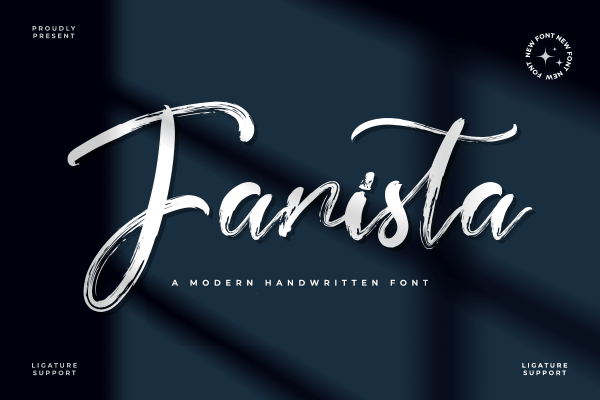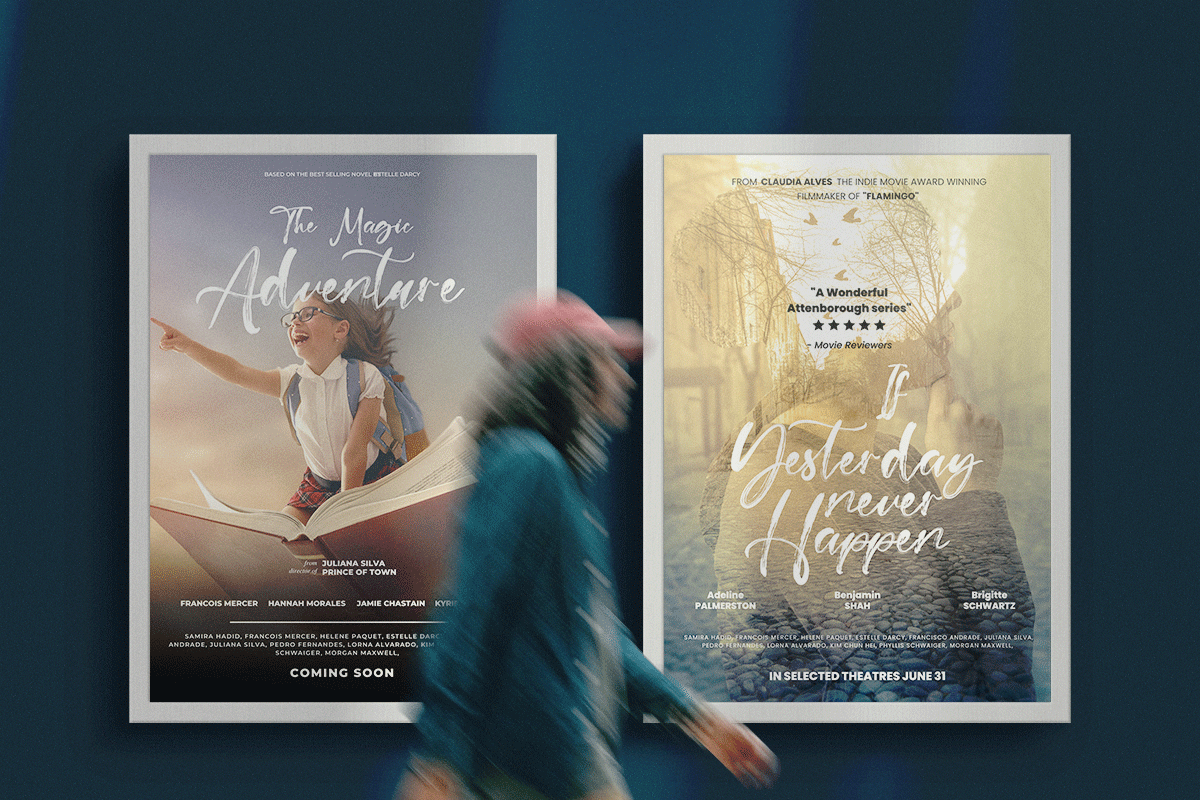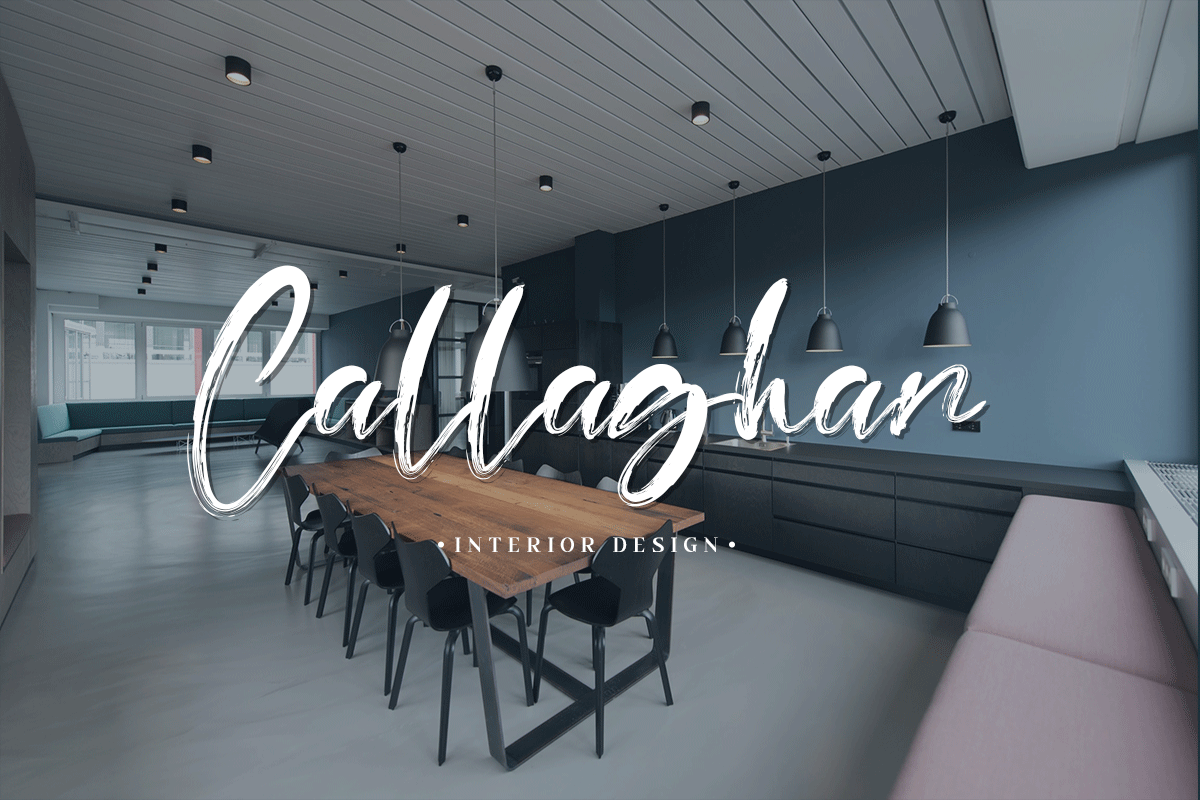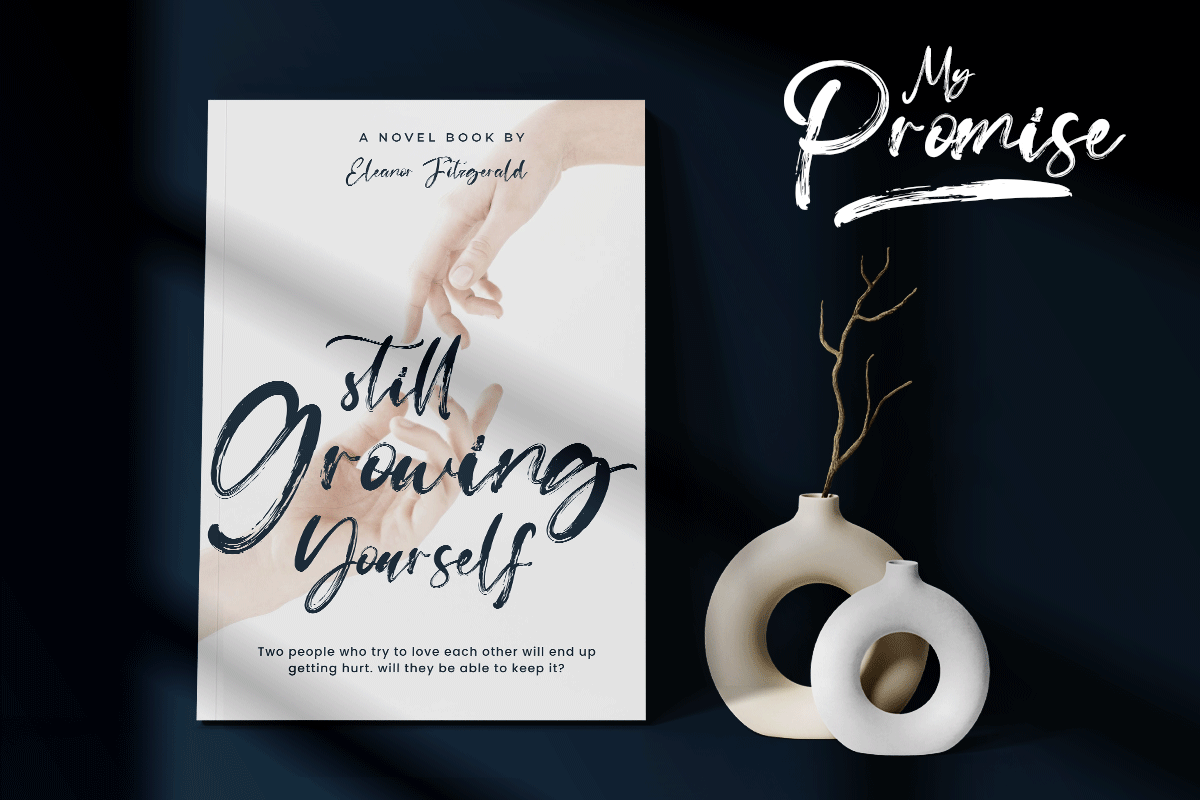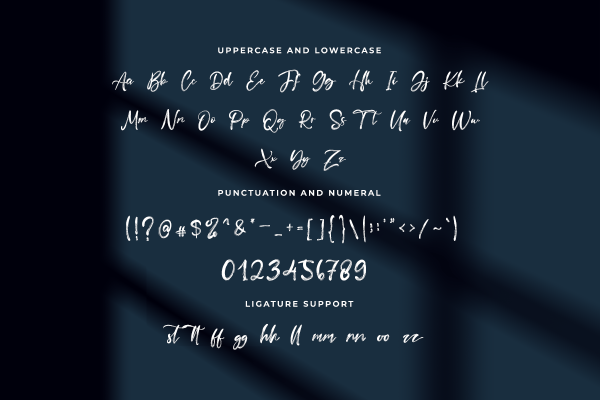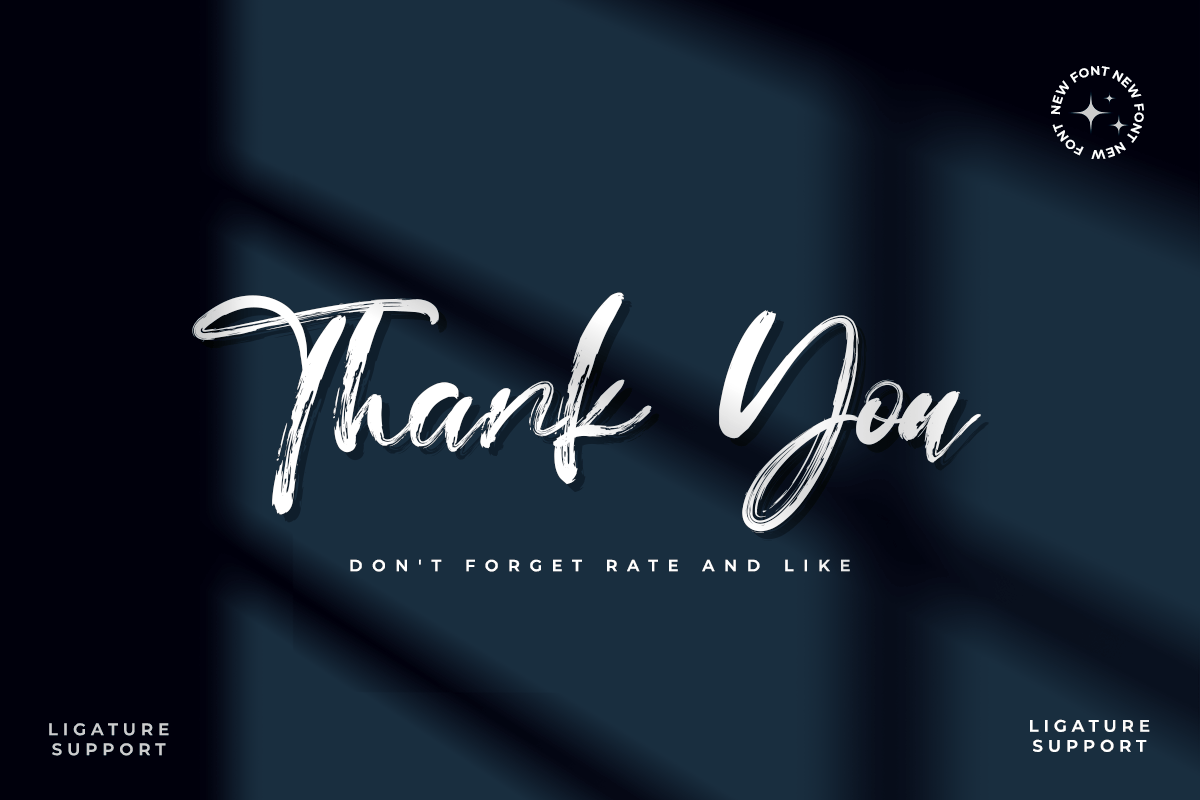
Fanista Handwritten Brush Font Handwritten Fonts provides a wide selection of font types that have interesting characteristics. This time Fanista Handwritten Brush Font is here as one of the best choices among other fonts. Fanista Handwritten Brush Font is a brush font whose appearance is written of brushes. This can look from the aesthetic characteristics of the Fanista Handwritten Brush Font. It is created in a curved shape with some letters having shadows as if they were painted using a brush pen. Seeing the explanation above, the Fanista Handwritten Brush Font is legible. This typeface is not proper for printing in large sizes because it will reduce readability. The use of small or medium sizes is felt to be able to give a simple and elegant impression that you want to display optimally. Fanista Handwritten Brush Font is the best font to use for formal events like weddings. This font can be combined with wedding invitations, souvenirs, welcome boards, and more. Another thing that suits this font is that it is used for brand promotion on social media or in a printed form such as posters. In its application, Fanista Handwritten Brush Font can choose various font sizes and file types accordingly. Our brush collection fonts are compatible with Figma Fonts, Canva Fonts, Freepik Fonts, and Adobe Fonts. They also work as Windows Fonts, and Apple Fonts. For your social media needs, you can use and install fonts in our Script & Signature font collection to use as Instagram Fonts, Facebook Fonts, and Twitter Fonts.